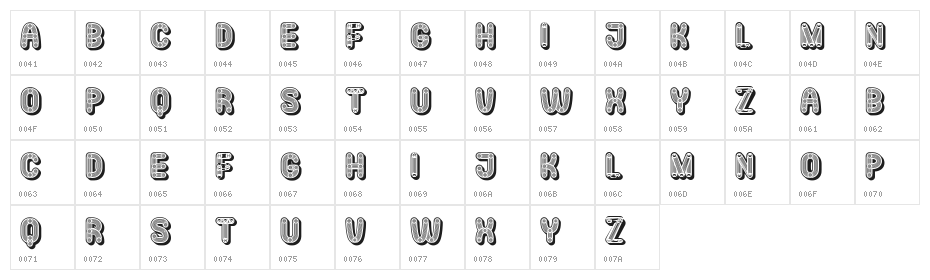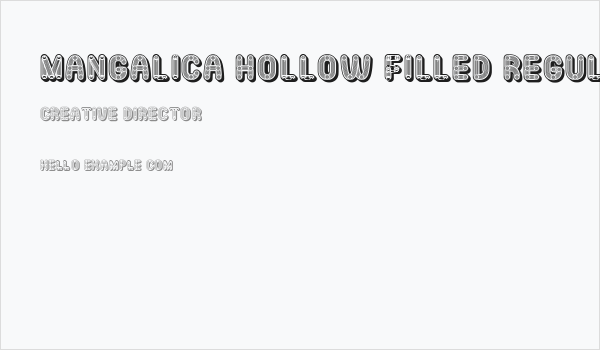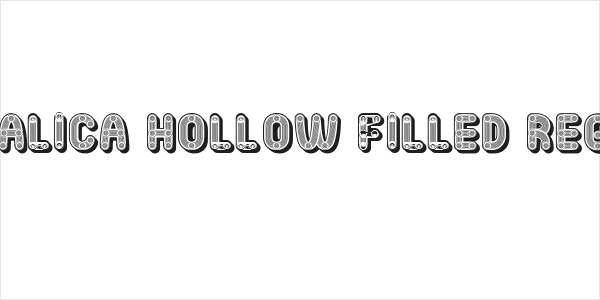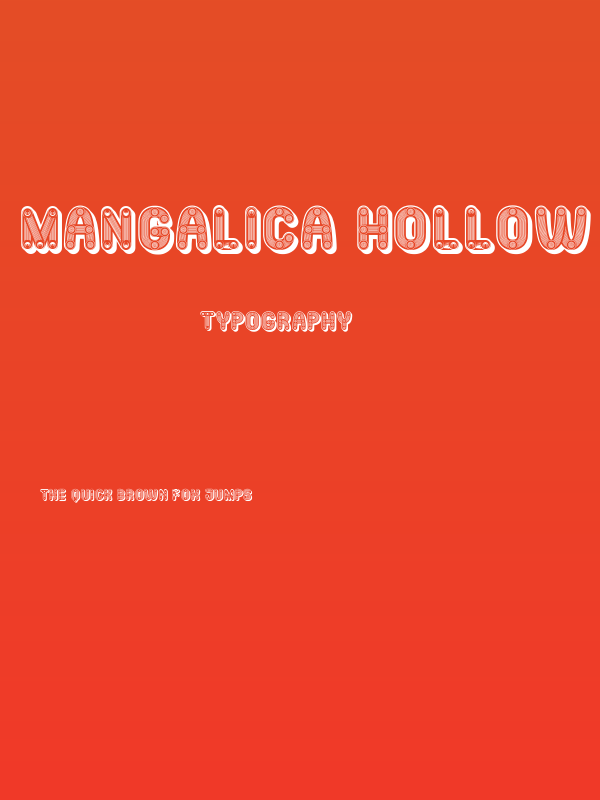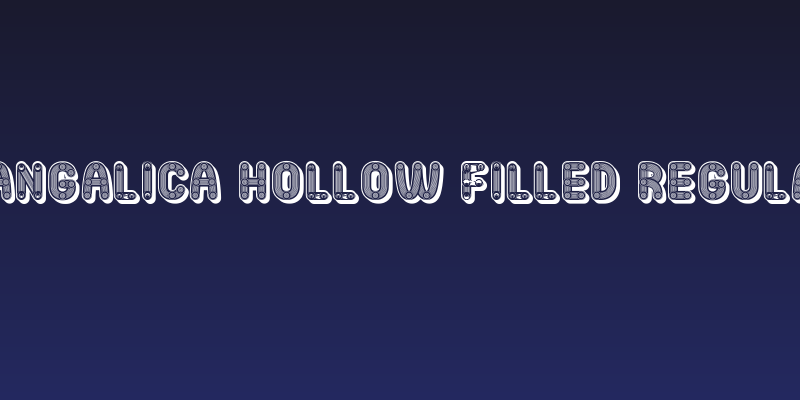
Mangalica Hollow Filled Regular Font
Mangalica Hollow Filled Regular Description
This font features a bold, playful design with a hollow interior filled with intricate patterns. Each character is outlined with a thick black border, enhancing its visibility and creating a striking contrast. The interior patterns consist of various geometric shapes, adding a decorative and whimsical touch. The font's style is reminiscent of retro or vintage designs, making it ideal for projects that require a fun and eye-catching typeface. The characters are evenly spaced, ensuring readability while maintaining their unique artistic flair.
| Overall Style | Decorative, Retro |
| Proposed Projects | Ideal for posters, logos, children's books, and any project needing a playful, retro aesthetic. |